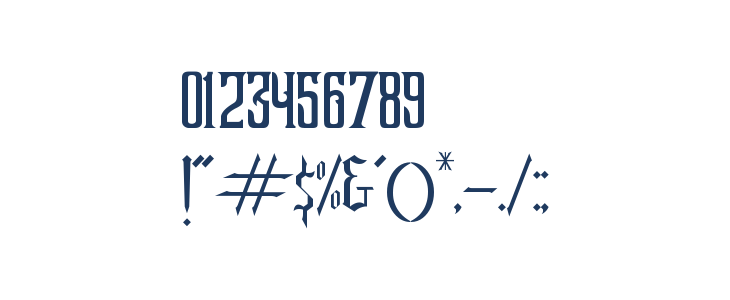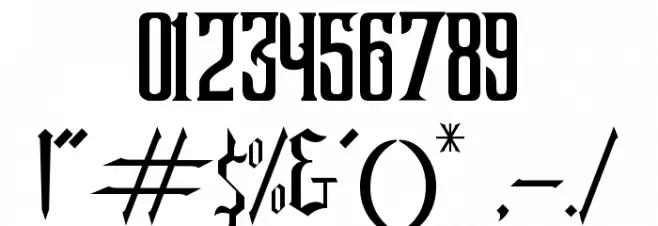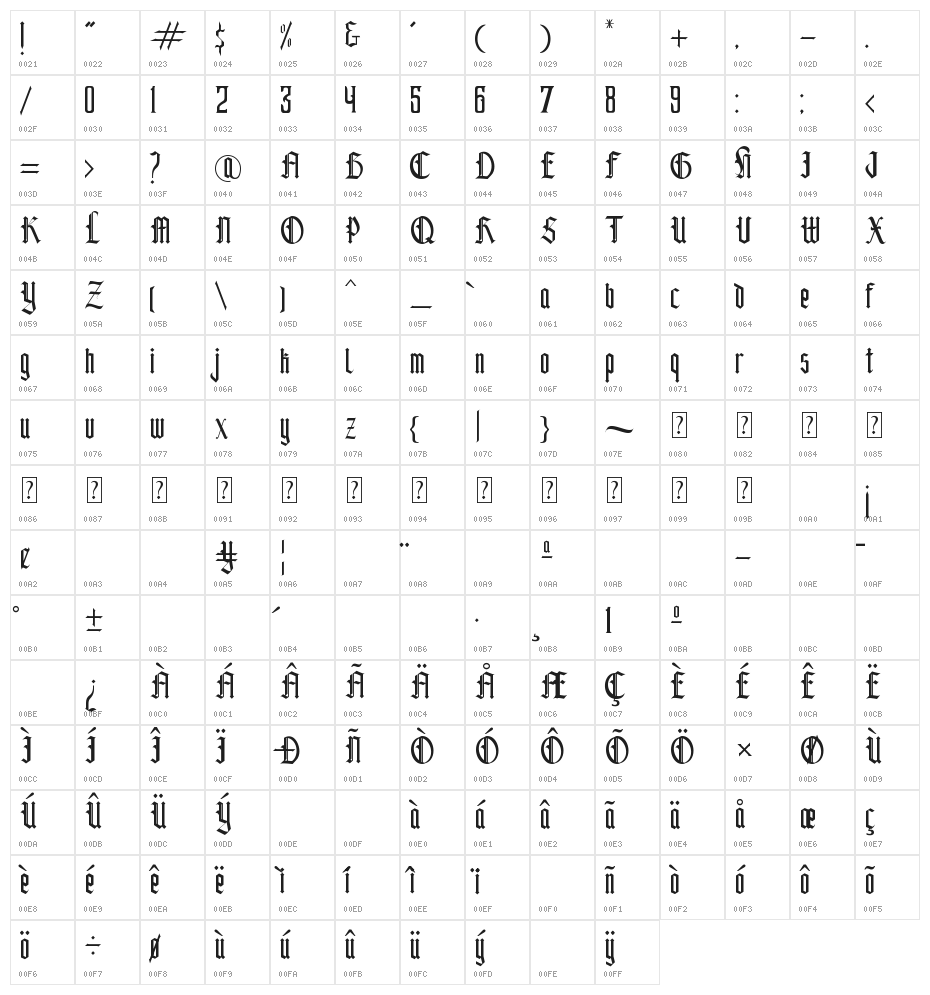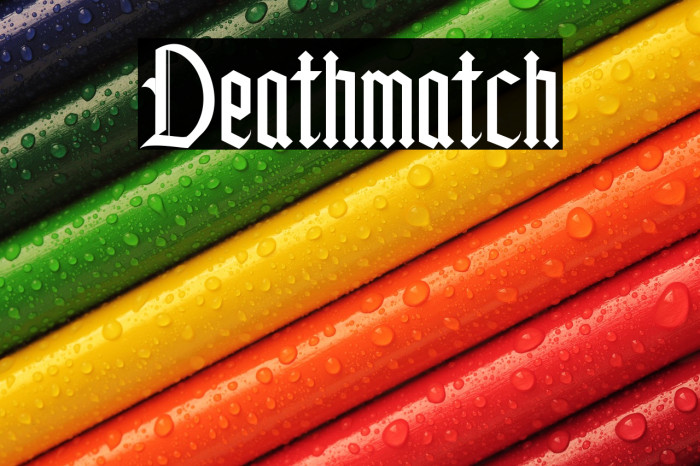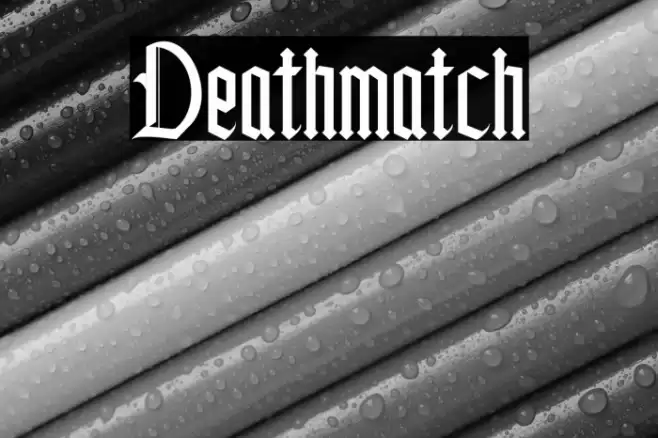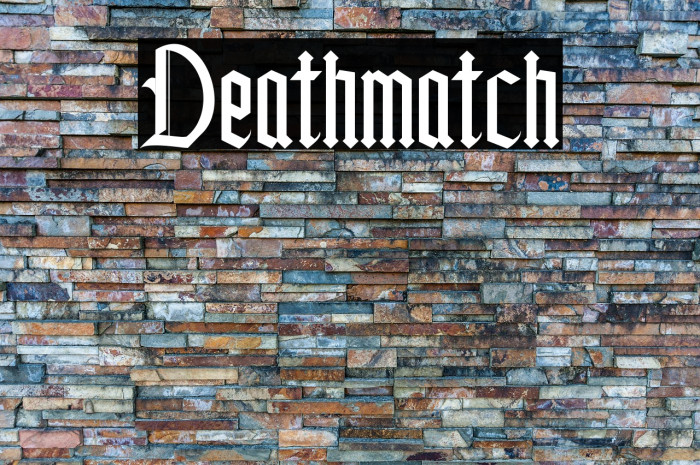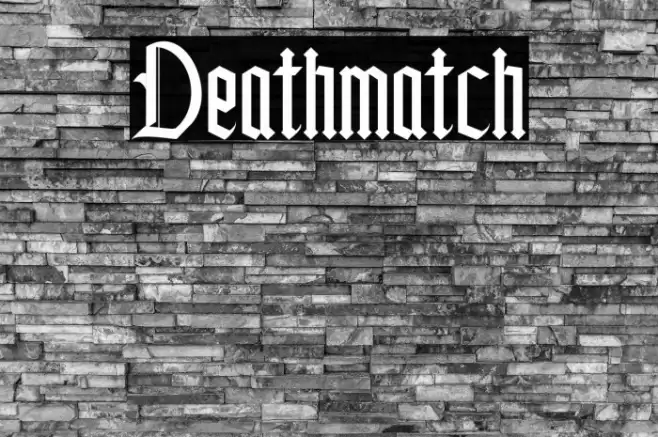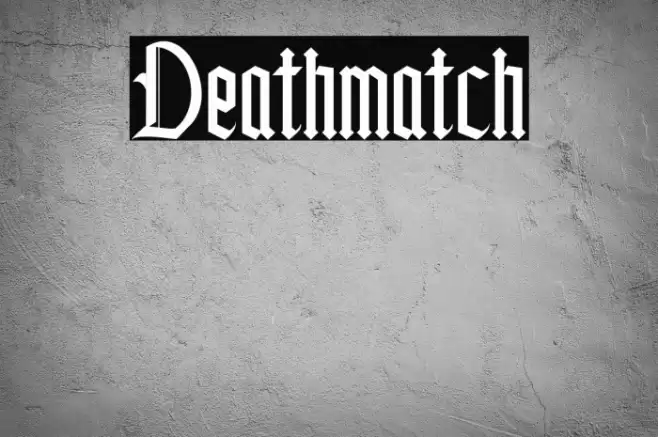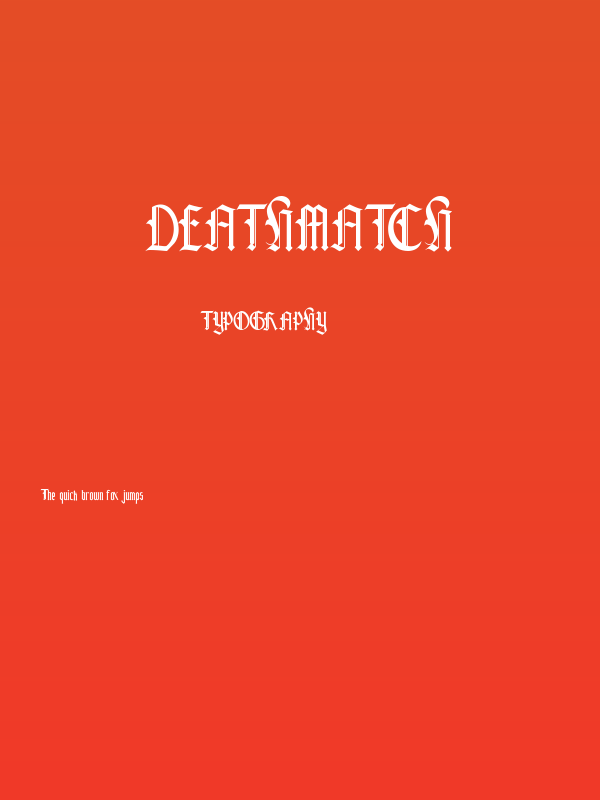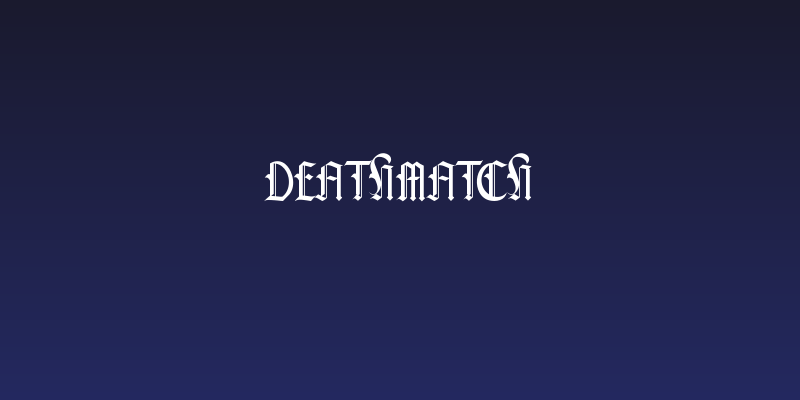
Deathmatch Font
Deathmatch Description
This font exhibits a bold and dramatic style, reminiscent of traditional Blackletter typefaces. The characters are intricately designed with sharp angles and pronounced serifs, giving them a gothic and medieval appearance. The uppercase letters are particularly ornate, with elaborate flourishes that enhance their visual impact. The lowercase letters maintain the same stylistic elements but are slightly more subdued, ensuring readability. The numerals and special characters are consistent with the overall theme, featuring similar angular and decorative elements. This font is ideal for projects that require a historical or dramatic flair, such as event posters, book covers, or branding for products with a vintage or gothic theme.
| Overall Style | Gothic, Medieval |
| Use Case | Headlines, Logos, Decorative text |
| Proposed Projects | Ideal for event posters, book covers, branding for vintage or gothic-themed products. |